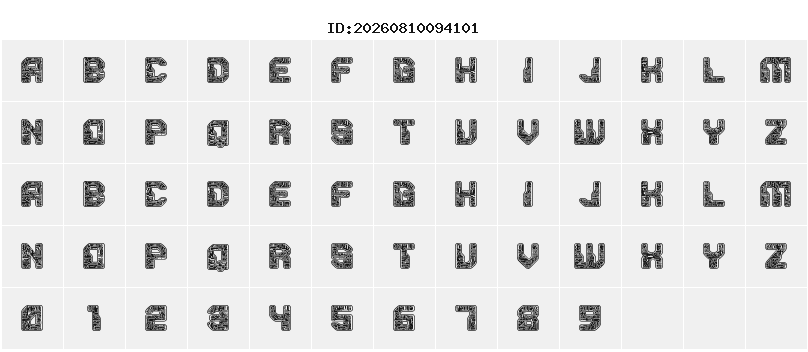
PCB Preview
• Font Name: PCB
• Full Font Name: PCB
• Version: Version 1.00 August 28, 2013, initial release
About PCB.ttf
PCB.ttf is a modern, elegant sans-serif font designed for ultimate readability and visual harmony. Perfect for branding, headlines, web design, and print materials.